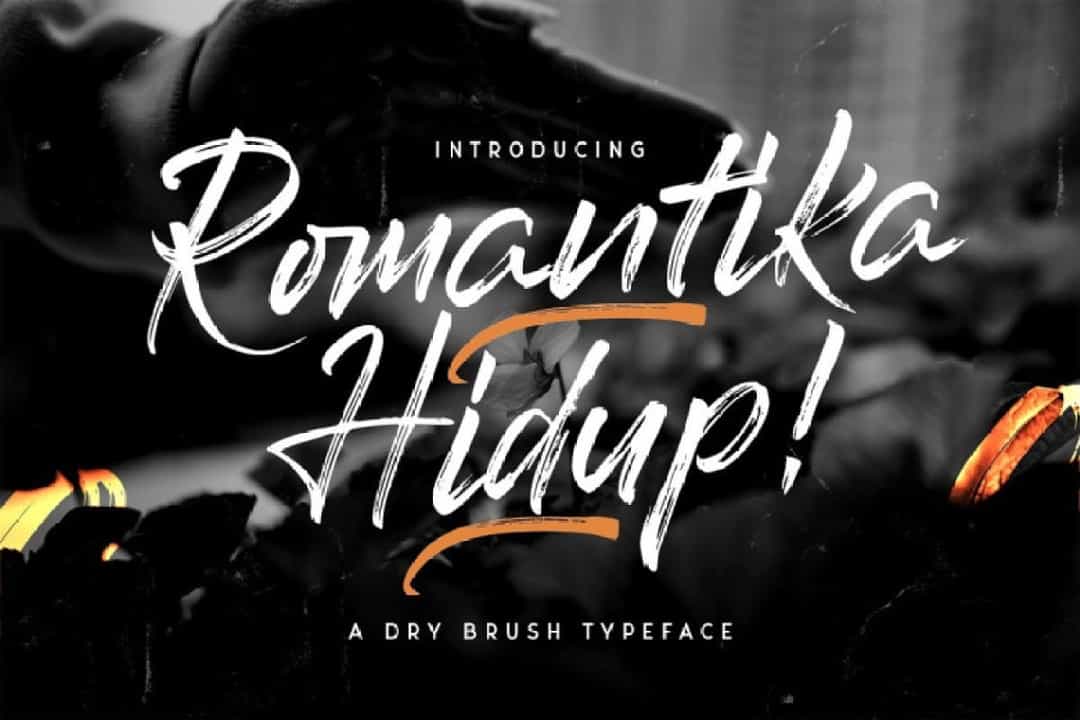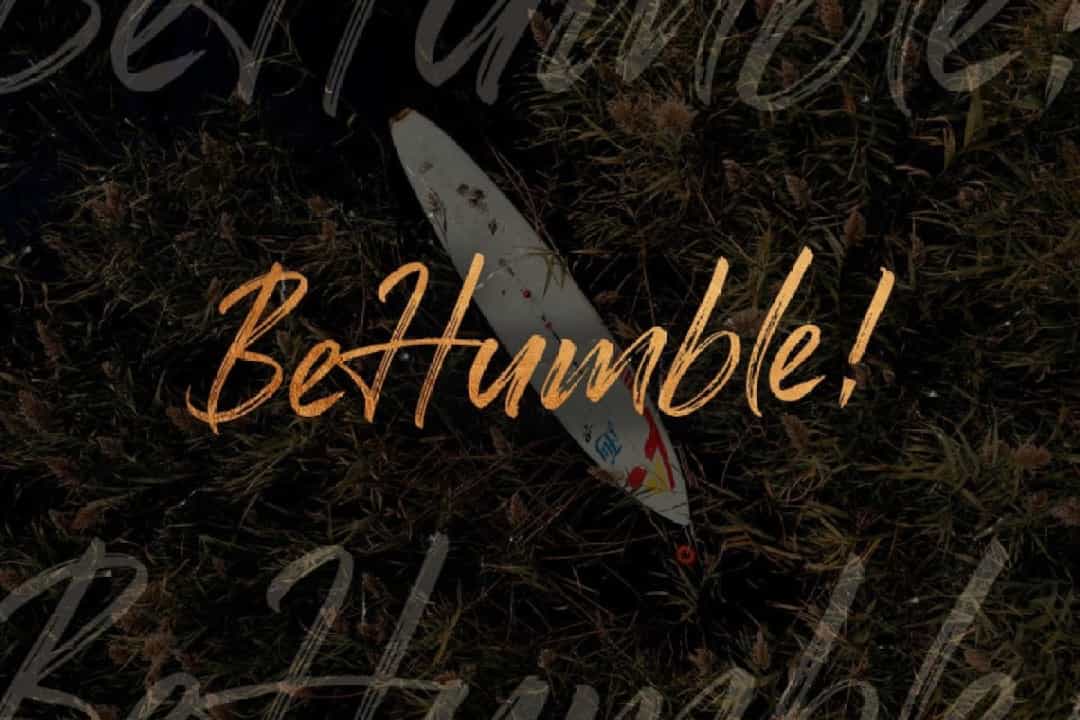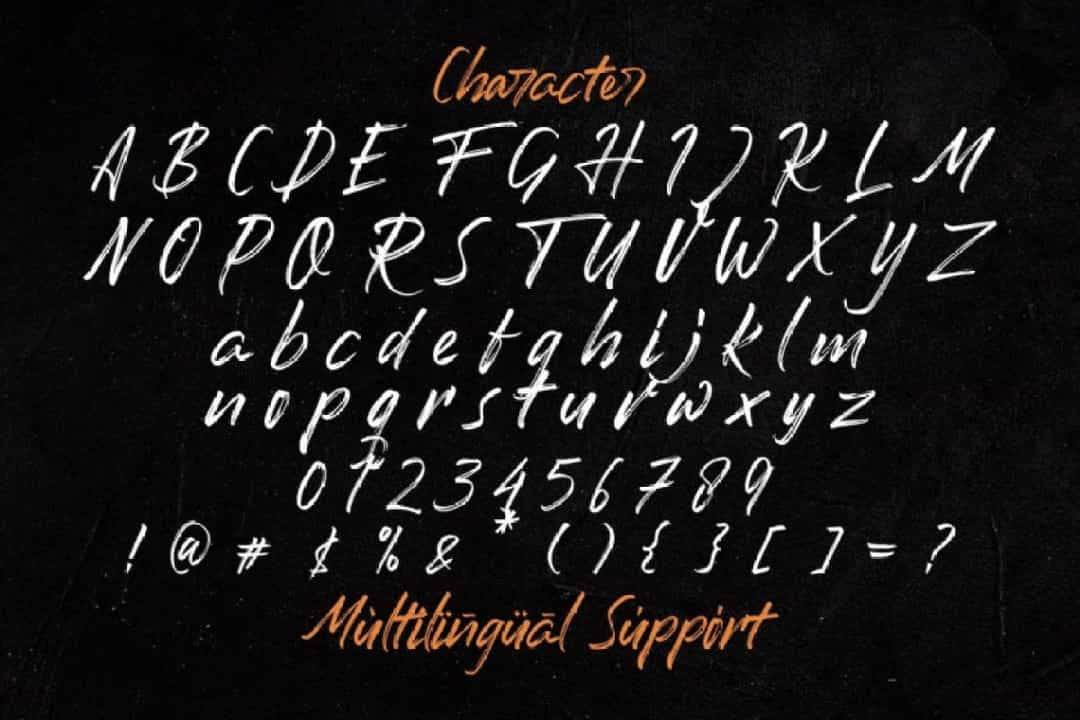
Romantika Hidup is an open-type script inspired by natural styles of dry brush writing, featuring upper and lower case characters as well as symbols. Lowercase characters include multi language support with many Ligatures included within its font family.